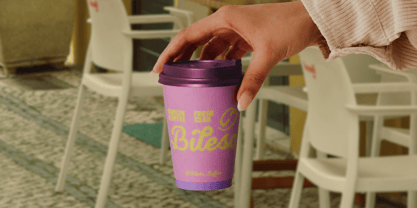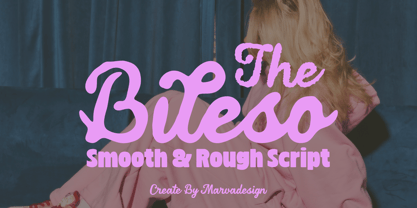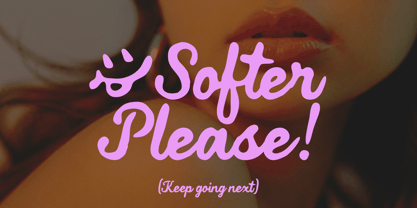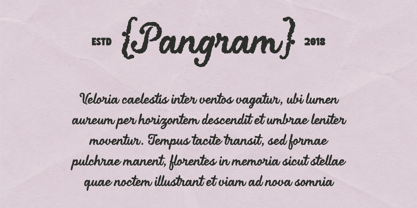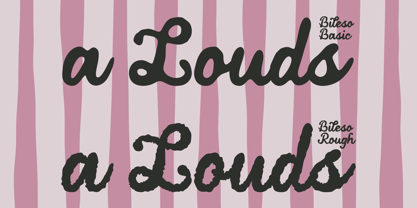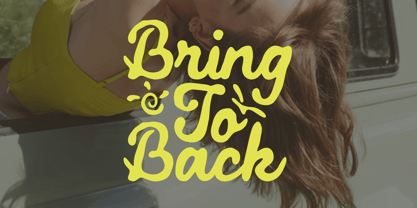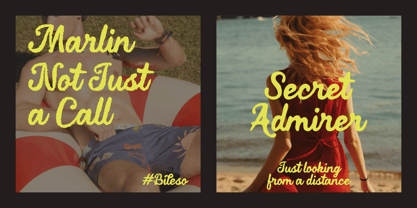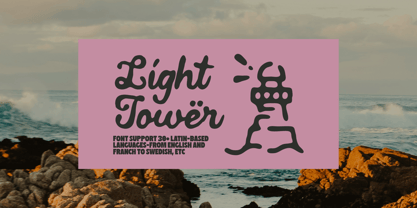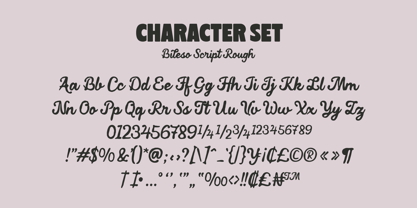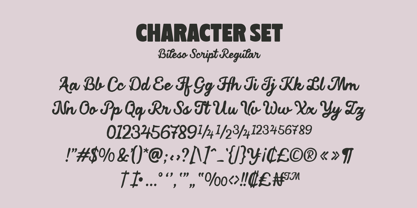
Bileso
by Marvadesign
The Bileso Font Family was designed by Febrie Setiawan and published by Marvadesign. Bileso contains 2 styles and family package options. More about this family
Bileso is a bold display script typeface that merges retro-inspired lettering with a playful handcrafted personality. Featuring smooth flowing strokes, rounded terminals, and expressive curves, this typeface delivers a warm and inviting visual presence. Its oversized forms and soft monoline construction foster a strong sense of friendliness while ensuring excellent readability. Drawing inspiration from vintage sign painting, classic packaging, and nostalgic advertising graphics, Bileso captures a timeless aesthetic with a contemporary twist. A defining characteristic of Bileso is its balance between polished elegance and organic imperfection. Available in both Regular and Rough styles, the typeface offers versatility for various creative directions. The Regular version boasts a clean and smooth appearance, while the Rough version introduces subtle texture and handcrafted charm. Decorative alternates, playful symbols, and unique stylistic details enhance the font’s personality, making each composition feel dynamic and distinctive. Bileso is particularly well-suited for branding, logos, café and restaurant identities, packaging design, editorial headlines, social media content, merchandise, posters, and lifestyle-focused visual projects. Its cheerful and expressive nature makes it ideal for brands seeking a friendly, approachable, and memorable voice. The font excels in large-scale applications where its character-rich letterforms can truly shine and create a lasting impression.
Designers: Febrie Setiawan
Foundry: Marvadesign